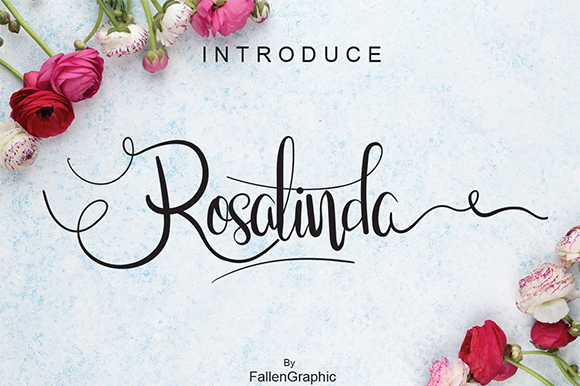
Rosalinda Script Font
The Rosalinda is a lovely calligraphy script. It was handwritten and includes unique forms of calligraphy with a natural writing style.
It can be used for various purposes such as headings, logos, wing invitations, t-shirts, letterheads, signage, labels, news, posters, badges, and much more!